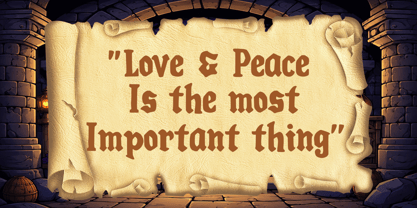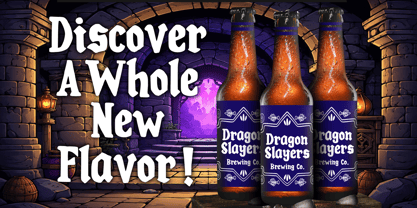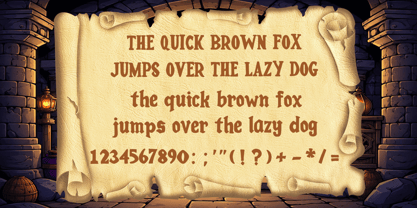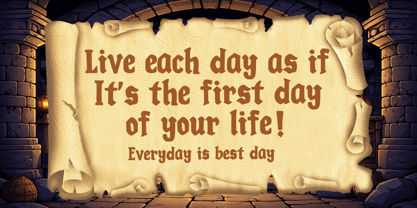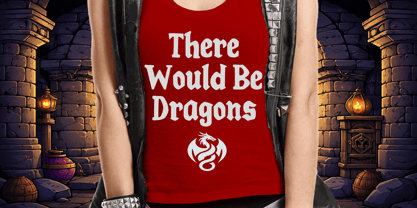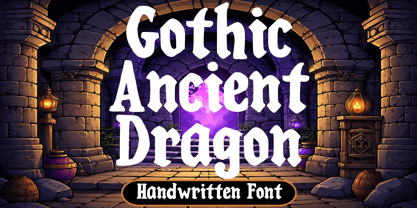
Gothic Ancient Dragon
La familia tipográfica Gothic Ancient Dragon fue diseñada por Gabriel Valentinus y publicada por Mvmet. Gothic Ancient Dragon contiene 1 estilos. Más información sobre esta familia
Unleash your creativity with Gothic Ancient Dragon, a whimsical yet antique font inspired by the charm of 90s fantasy cartoons and the excitement of tabletop games. This font is perfect for adding a touch of the Middle Ages to a variety of designs, including children’s book illustrations, game designs, unique t-shirts, and greeting cards. If you're looking to create enchanting stickers or captivating posters, Gothic Ancient Dragon is the ideal choice. With its versatile style, this font brings an irresistible allure to any design project. Explore a piece of the medieval era and transform your ideas into striking designs with this fantastic font, guaranteed to enhance the appeal of any creative endeavor. Step into the world of artistic freedom with Gothic Ancient Dragon and let your creations be as legendary as the name itself.